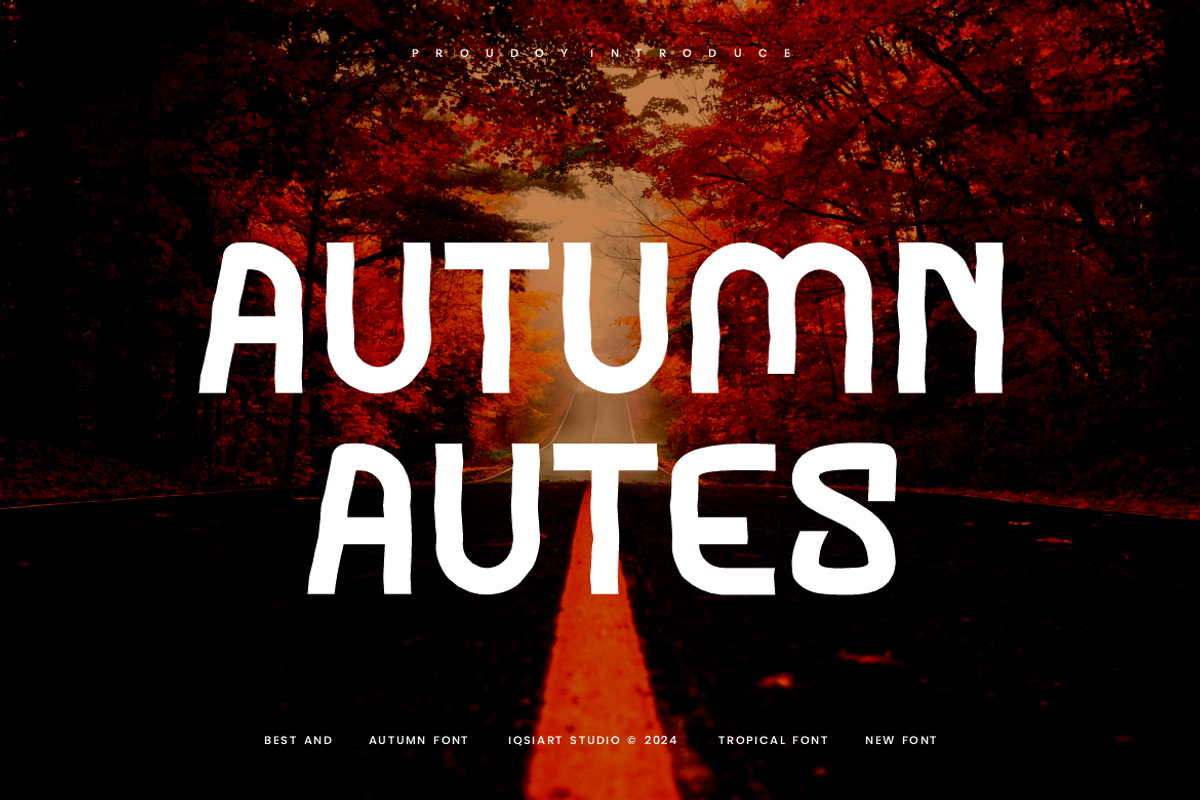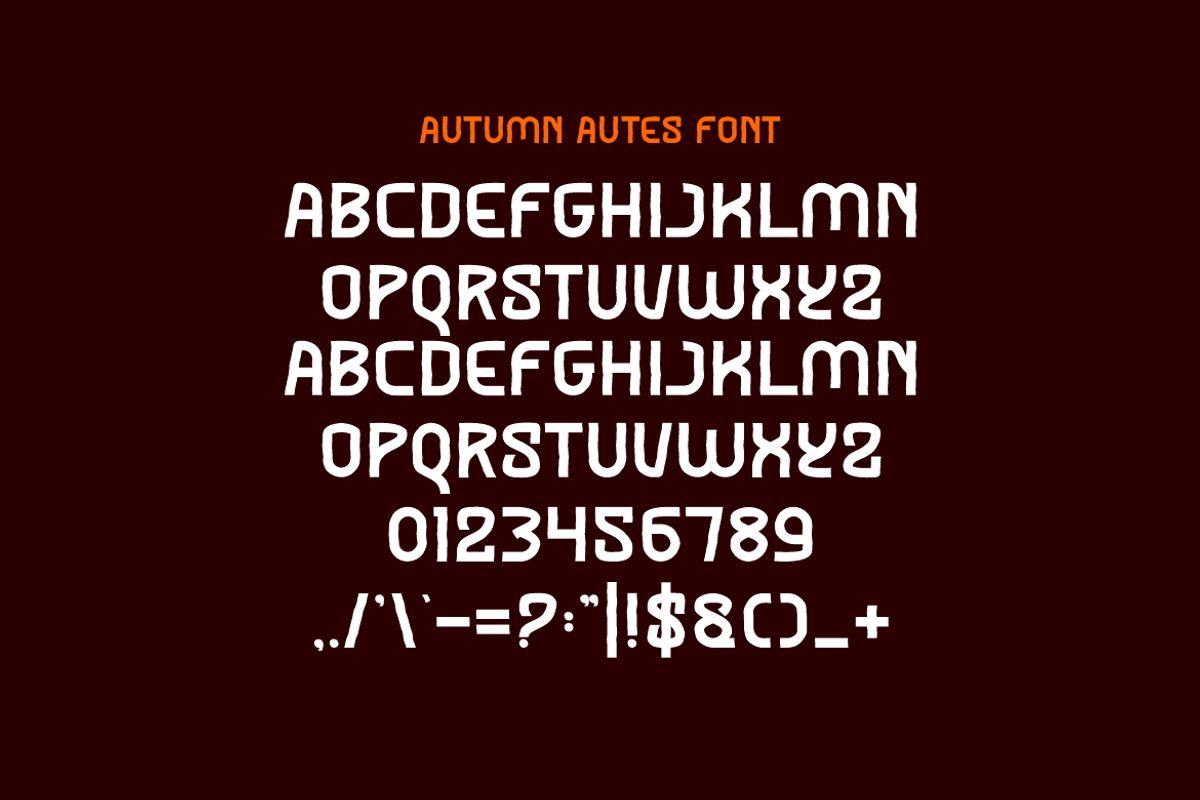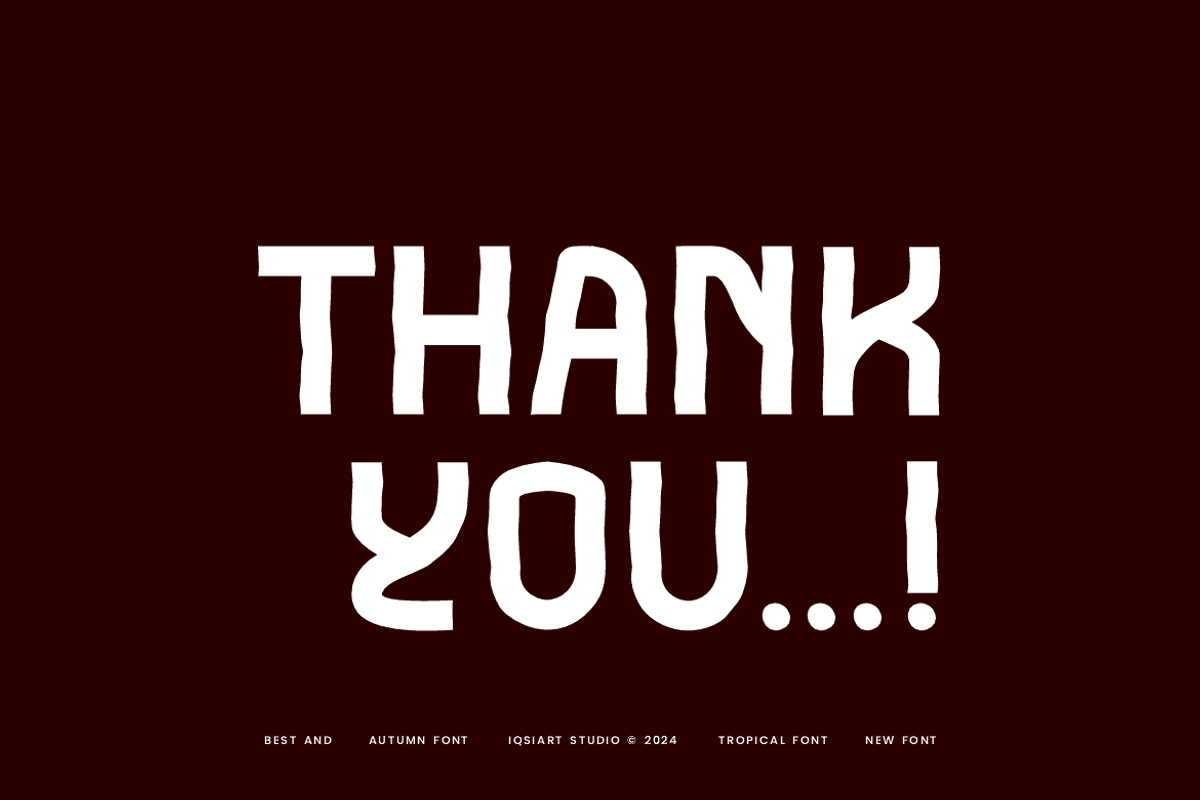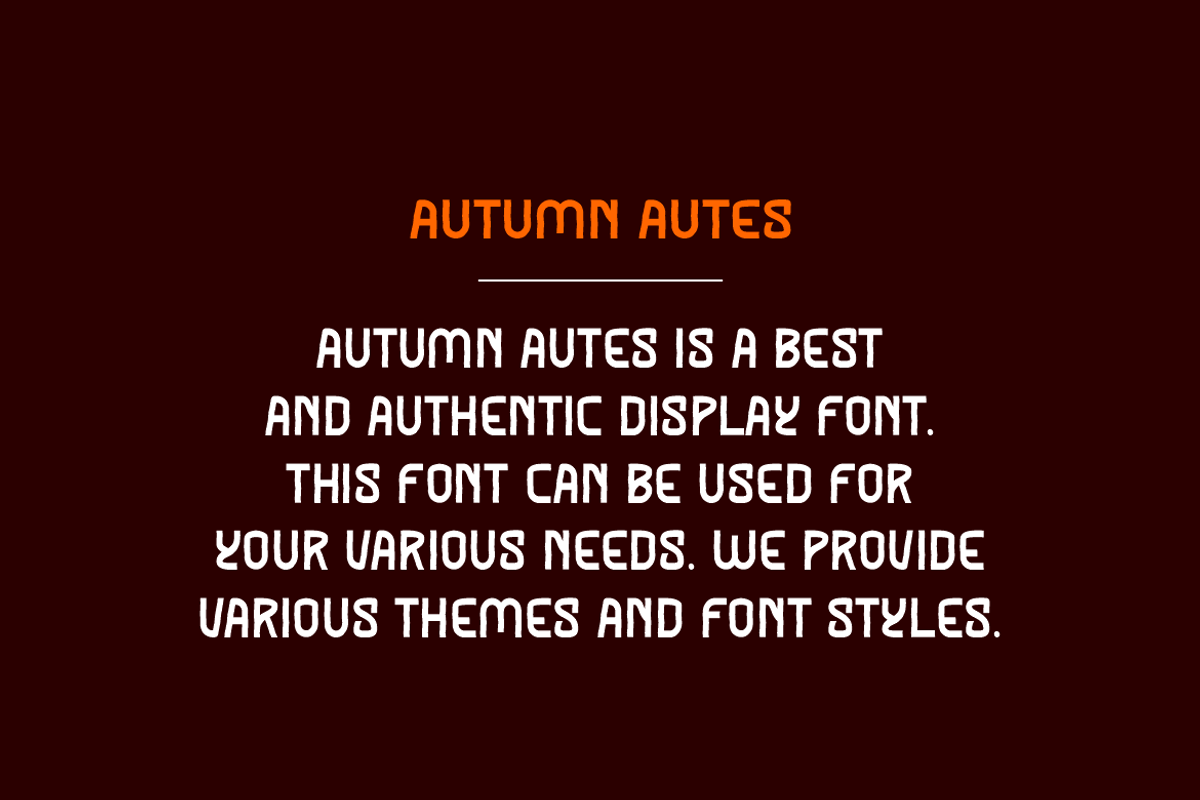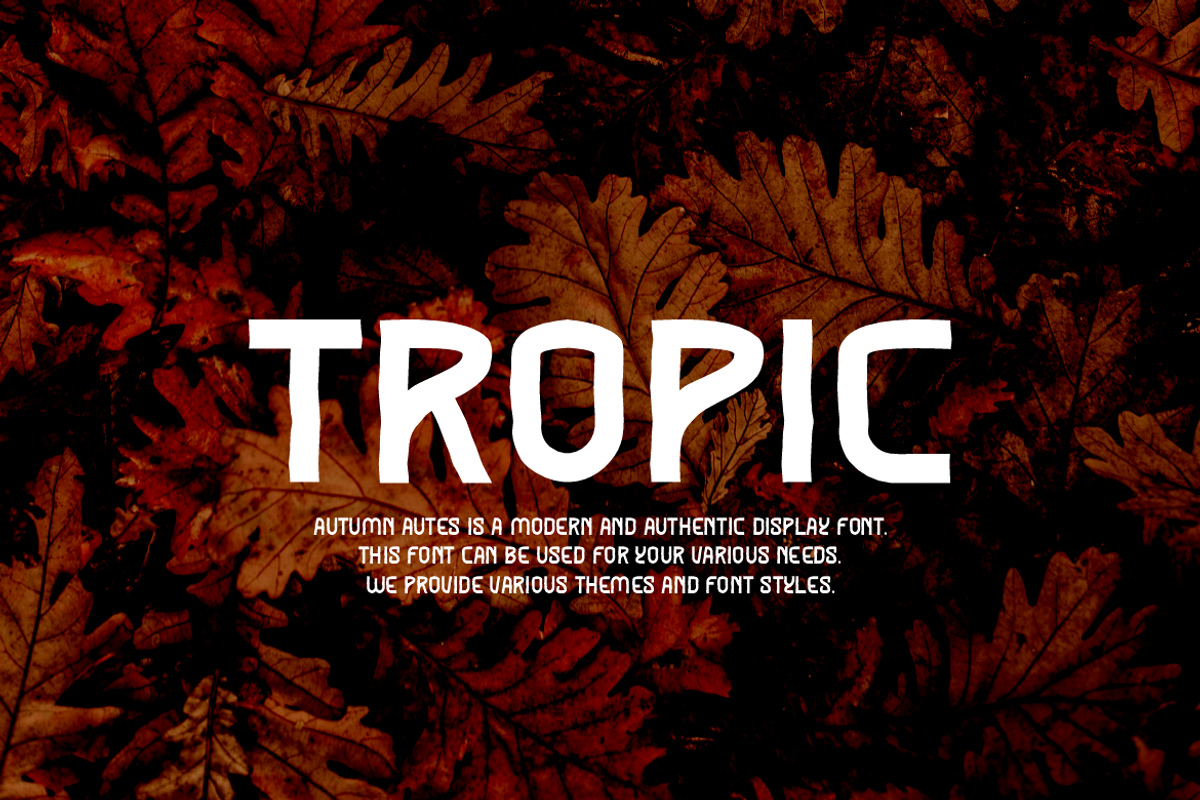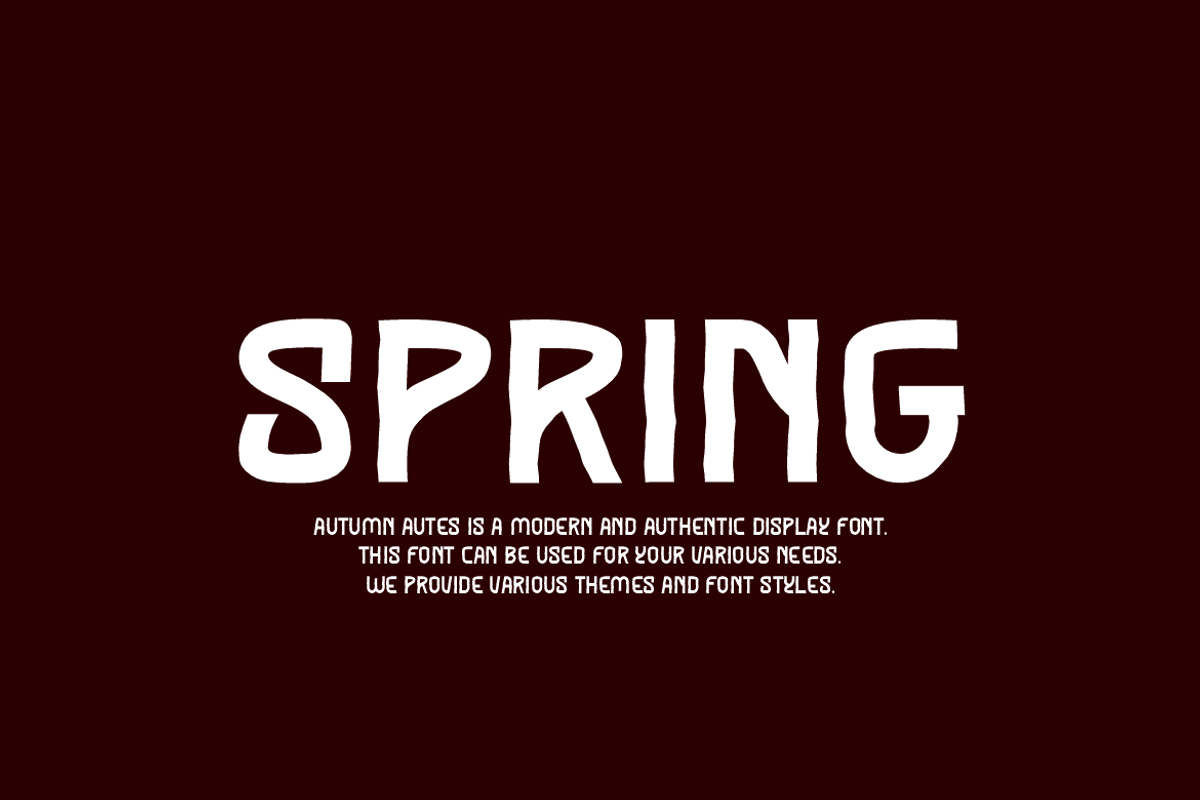
Autumn Autes - Tropical Font
Autumn Autes Font is a best and authentic display font. This font can be used for your various needs. We provide various themes and font styles. visit our profile to get a wide variety of themes and different font styles you need.